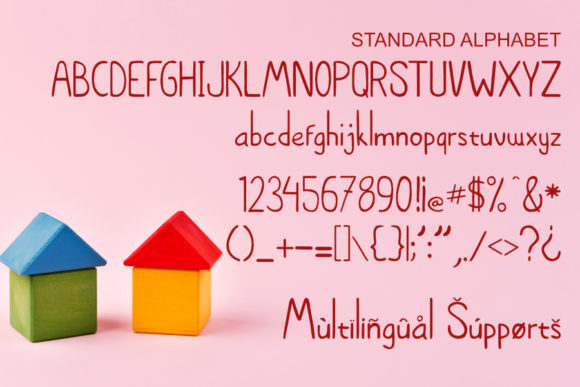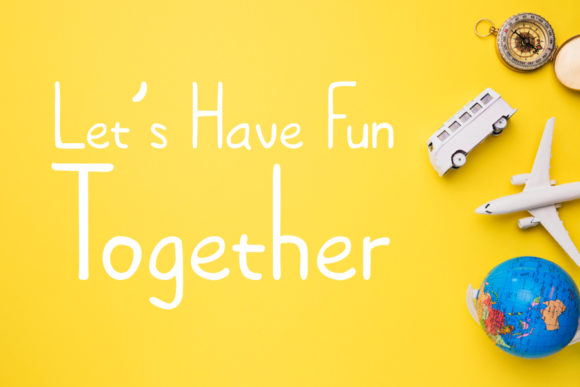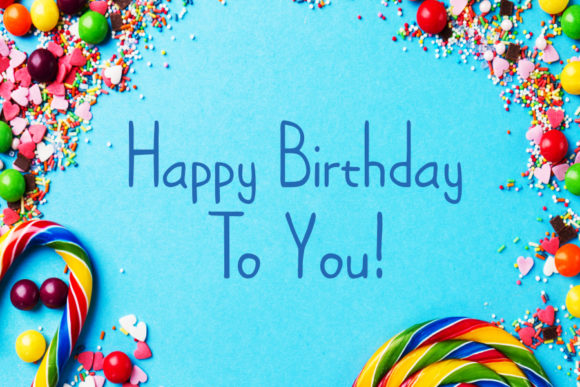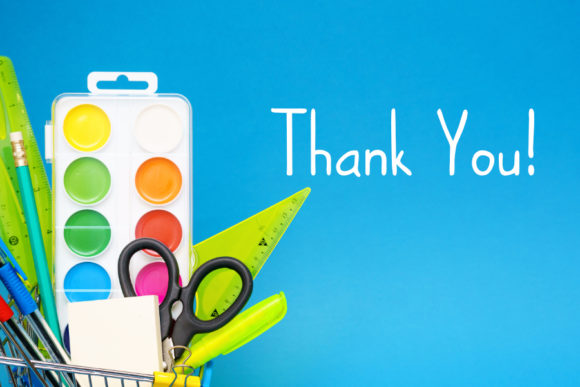
Introducing Cheryl Font: The Playful and Friendly Display Font You Need
Are you tired of using the same old fonts in your designs? Do you want to add a touch of playfulness and friendliness to your projects? Look no further than Cheryl Font, a cute and friendly display font that’s perfect for a wide range of design applications. In this article, we’ll take a closer look at Cheryl Font, its features, and how you can use it to take your designs to the next level.
What is Cheryl Font?
Cheryl Font is a display font designed to bring a sense of playfulness and friendliness to your designs. Its incredibly playful feel makes it perfect for designs that require a lighthearted and approachable tone. The font features beautiful and well-balanced characters that are carefully crafted to ensure that your text looks great in any context.
Key Features of Cheryl Font
So, what makes Cheryl Font so special? Here are some of its key features:
• Playful feel: Cheryl Font has a unique and playful feel that sets it apart from other fonts. Its characters are designed to be fun and engaging, making it perfect for designs that require a lighthearted tone.
• Well-balanced characters: Each character in Cheryl Font is carefully crafted to ensure that they are well-balanced and visually appealing. This makes it perfect for use in a wide range of design applications.
• Versatile: Cheryl Font is a versatile font that can be used in a wide range of design applications, from logos and stationery art to quotes, book covers, magazines, and more.
Use Cases for Cheryl Font
So, how can you use Cheryl Font in your designs? Here are some ideas to get you started:
• Logos: Cheryl Font is perfect for creating fun and playful logos that reflect your brand’s personality.
• Stationery art: Add a touch of playfulness to your stationery with Cheryl Font. It’s perfect for creating fun and colorful greeting cards, invitations, and more.
• Quotes: Cheryl Font is a great choice for creating inspirational quotes, posters, and social media graphics.
• Book covers: Use Cheryl Font to create eye-catching book covers that will stand out on bookshelves.
• Magazines: Cheryl Font is perfect for use in magazine titles, headings, and subheadings.
• Branding: Use Cheryl Font to create a consistent brand identity across all your marketing materials.
Why Choose Cheryl Font?
So, why should you choose Cheryl Font for your designs? Here are just a few reasons:
• Unique and playful feel: Cheryl Font has a unique and playful feel that will set your designs apart from the crowd.
• High-quality characters: Each character in Cheryl Font is carefully crafted to ensure that they are high-quality and visually appealing.
• Versatile: Cheryl Font is a versatile font that can be used in a wide range of design applications.
In conclusion, Cheryl Font is a cute and friendly display font that’s perfect for designers and crafters who want to add a touch of playfulness and friendliness to their designs. With its unique and playful feel, well-balanced characters, and versatility, Cheryl Font is a great choice for a wide range of design applications. So why not give it a try and see how it can take your designs to the next level?
Get Inspired with Cheryl Font
Ready to get inspired with Cheryl Font? Here are some tips to help you get started:
• Experiment with different colors: Cheryl Font looks great in a wide range of colors, so don’t be afraid to experiment and find the perfect color scheme for your design.
• Play with different font sizes: Cheryl Font is perfect for use in a wide range of font sizes, from large headings to smaller body text.
• Combine with other fonts: Cheryl Font pairs well with a wide range of other fonts, so don’t be afraid to experiment and find the perfect combination for your design.